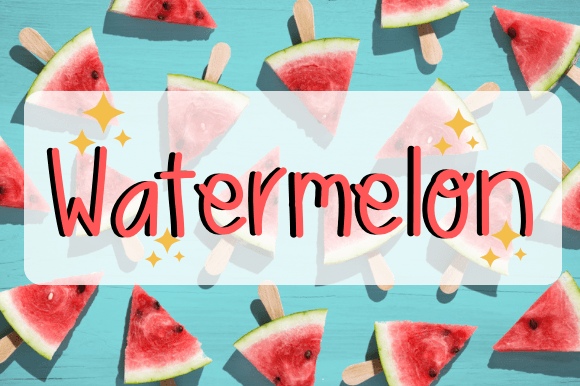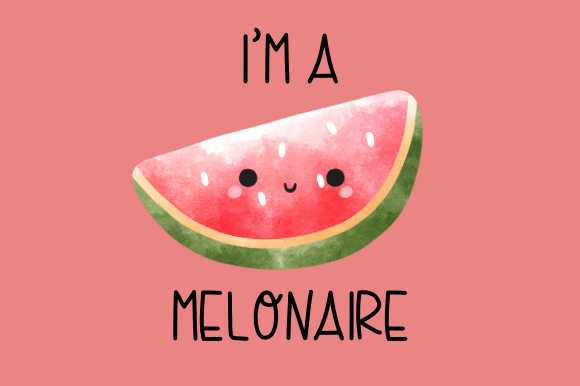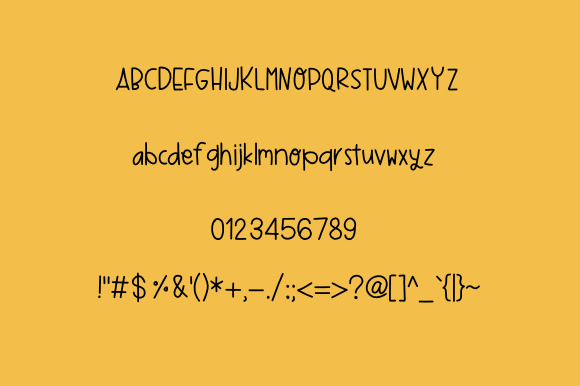
Watermelon Font
About Watermelon Font
Watermelon is a cute handwriting font. It has beautiful and well-balanced characters which makes it suitable for a wide range of crafty ideas.